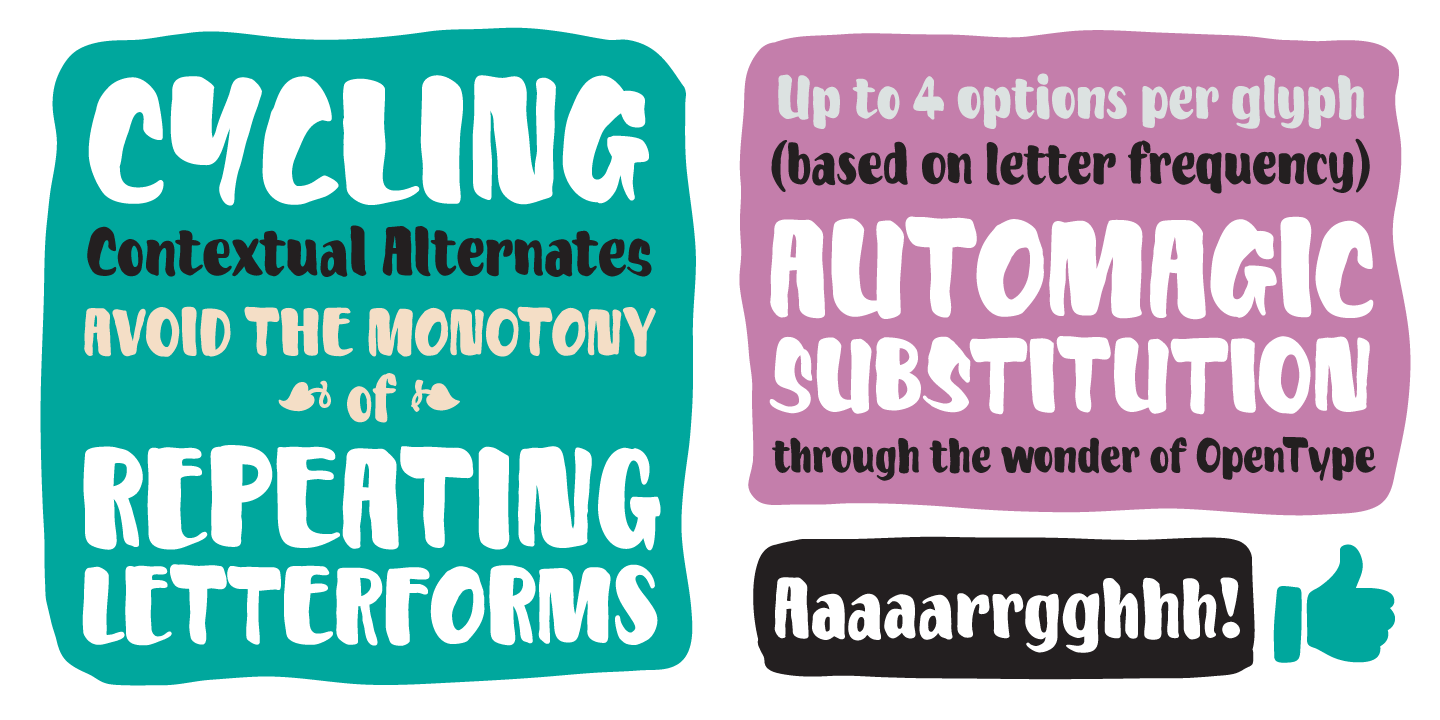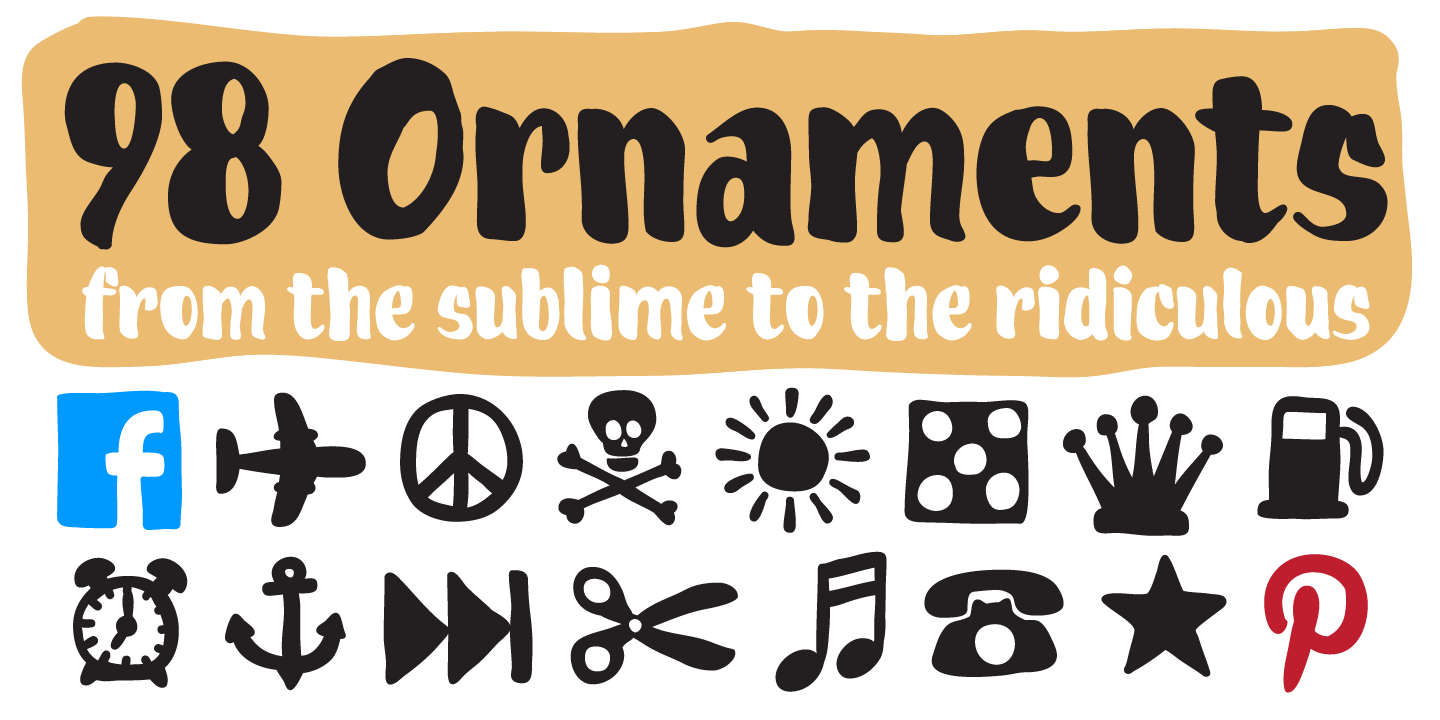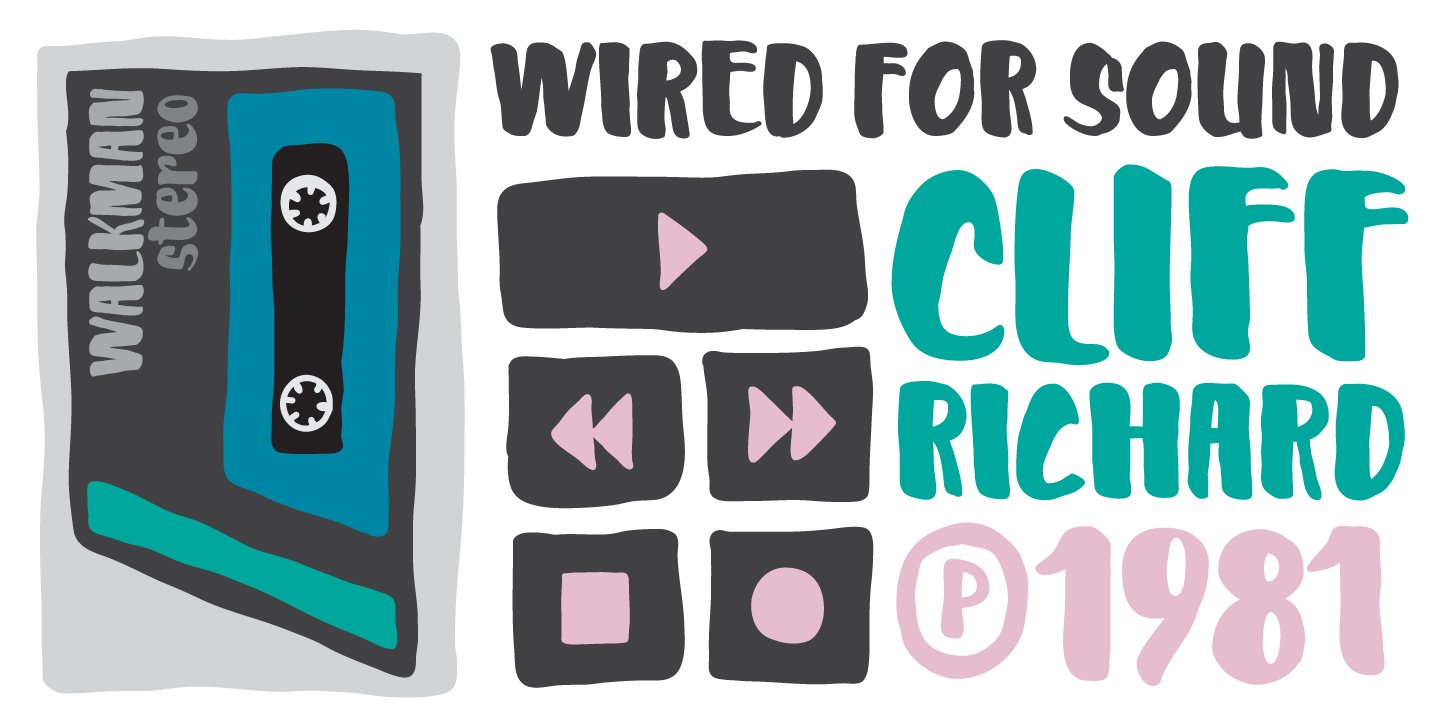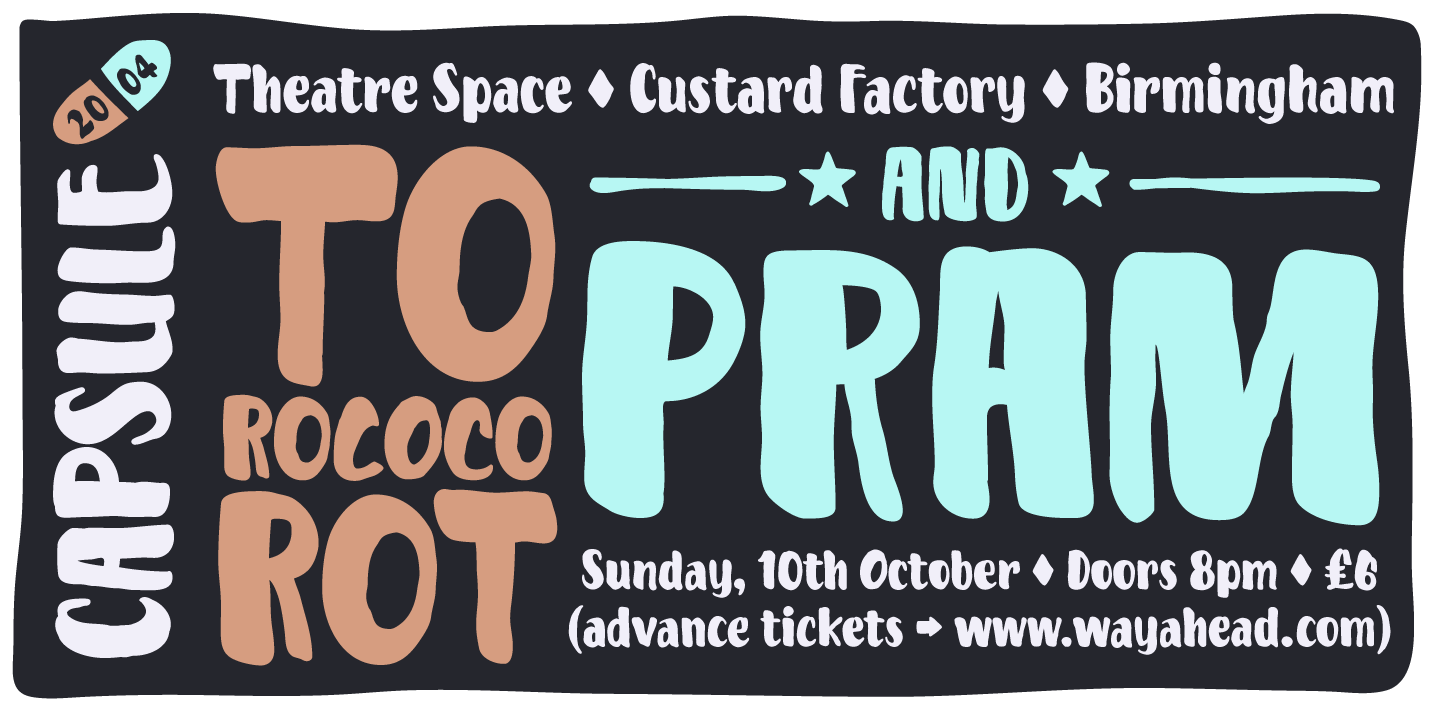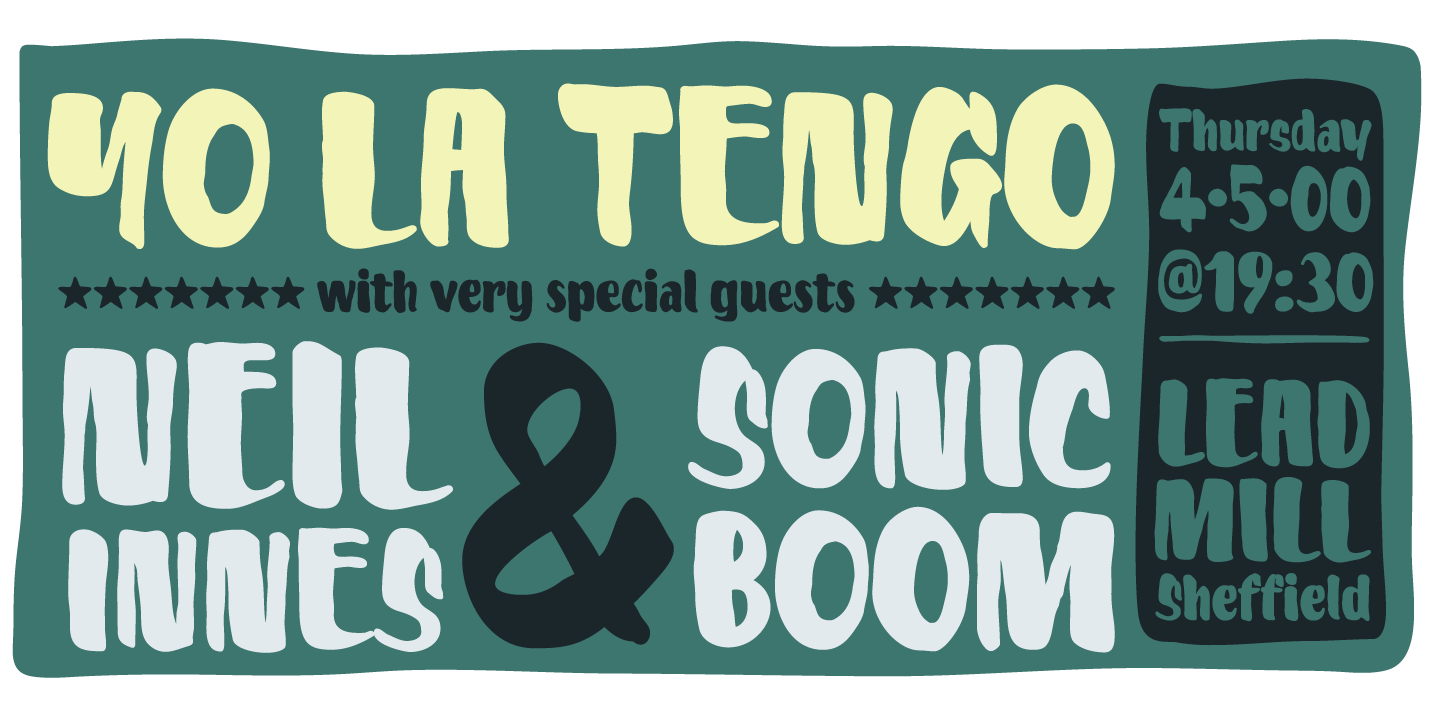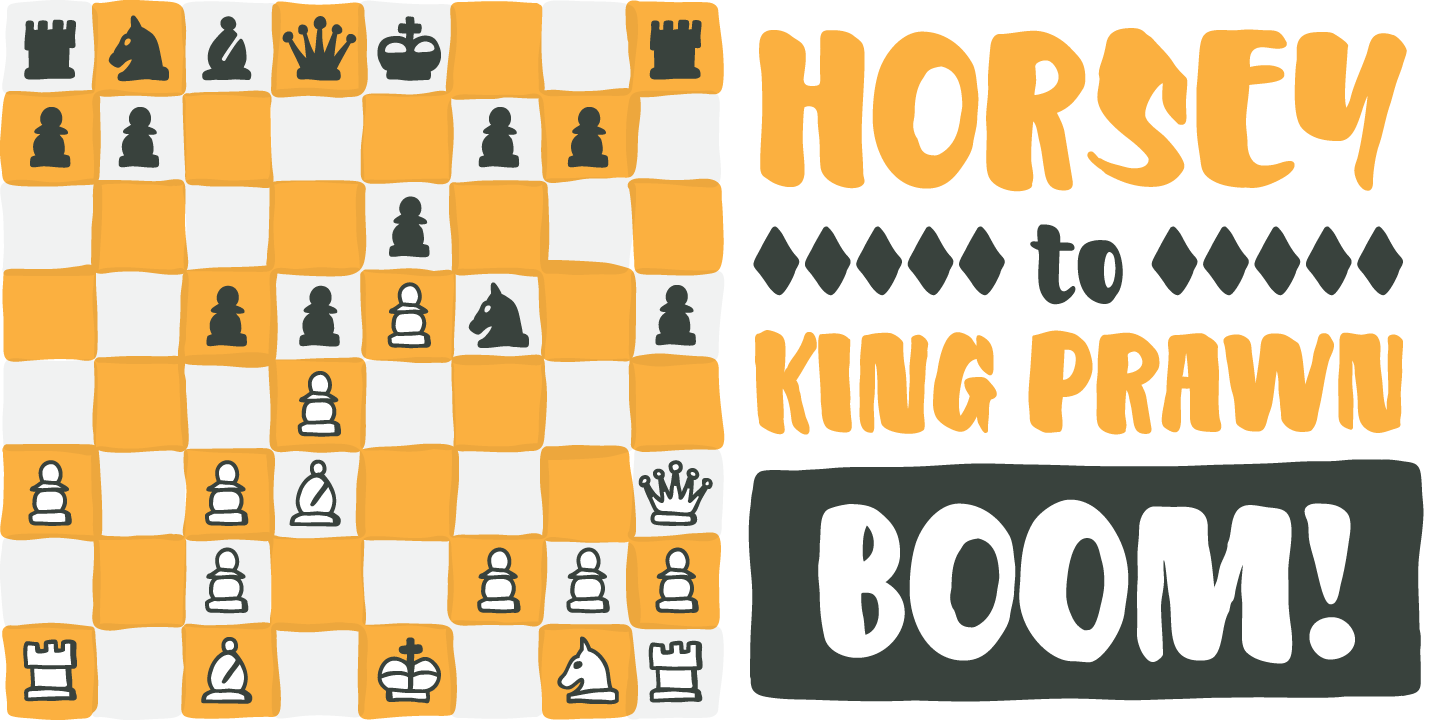
Kake
From Dave Rowland Type
Kake is a typeface in the style of a hand-painted sign outside a temple in Ubud, Bali. The unique hand-made aesthetic can be increased using alternates to avoid the monotony of repeating letters. The attention to design details makes for type that looks like it isn’t type. Kake is full-on display typography. Food packaging, magazine headlines, and fitness gear! It’s legible for small blocks of copy, but don’t go setting essays in it. Unless you really want to… in which case, go for it.
Designed by Dave Rowland